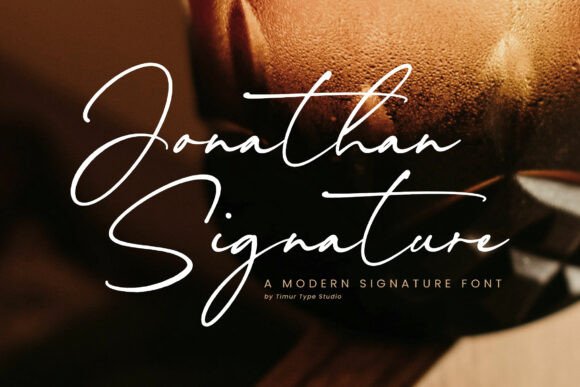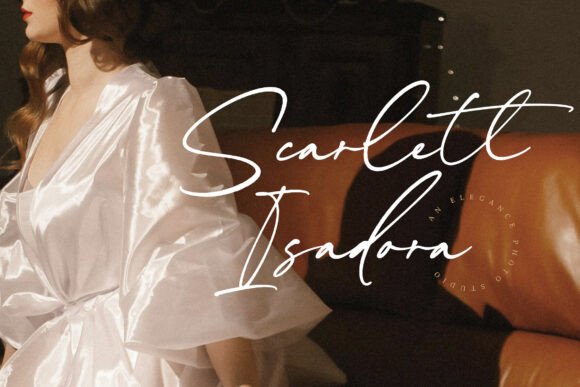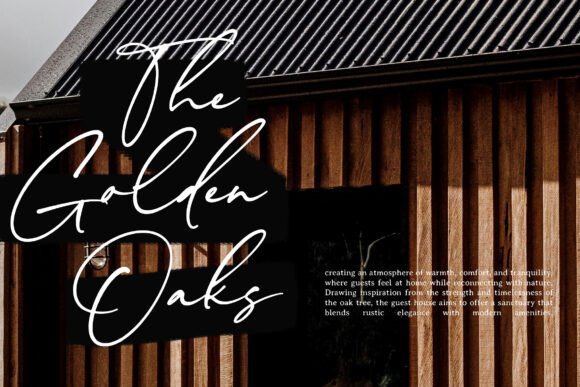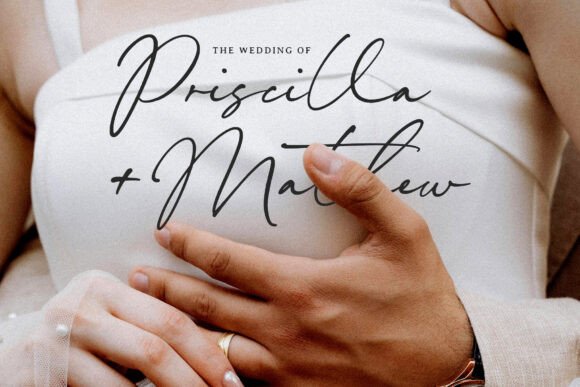
Jonathan Signature Font
About the Jonathan Signature Font
The wait is over! The incredible Jonathan Signature Font is now available for your design toolkit. Jonathan Signature is a Modern Signature Font
This font is a sleek and elegant modern signature font that blends fluid, cursive strokes with a contemporary twist. Perfect for creating a sophisticated touch, it embodies a handwritten style with smooth, flowing lines that make it ideal for logos, invitations, and branding materials. Its refined yet casual appearance makes it versatile for both formal and creative uses.
Jonathan Signature excels in applications requiring a touch of refined elegance, such as logos, wedding invitations, and short headlines. Its flowing nature also works well for packaging where a sophisticated yet approachable feel is desired. However, its cursive style is less suitable for body text or UI elements where readability is paramount; long passages set in this font would be difficult to read.
The font’s personality is sophisticated yet approachable; it conveys a sense of modern elegance without being overly formal. To complement its style, consider pairing Jonathan Signature with a clean sans-serif like Montserrat for body copy or a geometric sans-serif like Futura for a more modern contrast. A subtle serif like Garamond could also create a balanced, classic feel.
Avoid using it in contexts requiring high readability, such as website body copy or dense text blocks. Its best applications are those which prioritize visual impact and aesthetic appeal over extensive textual content.
Jonathan Signature Font Usage Examples
Jonathan Signature Font Example